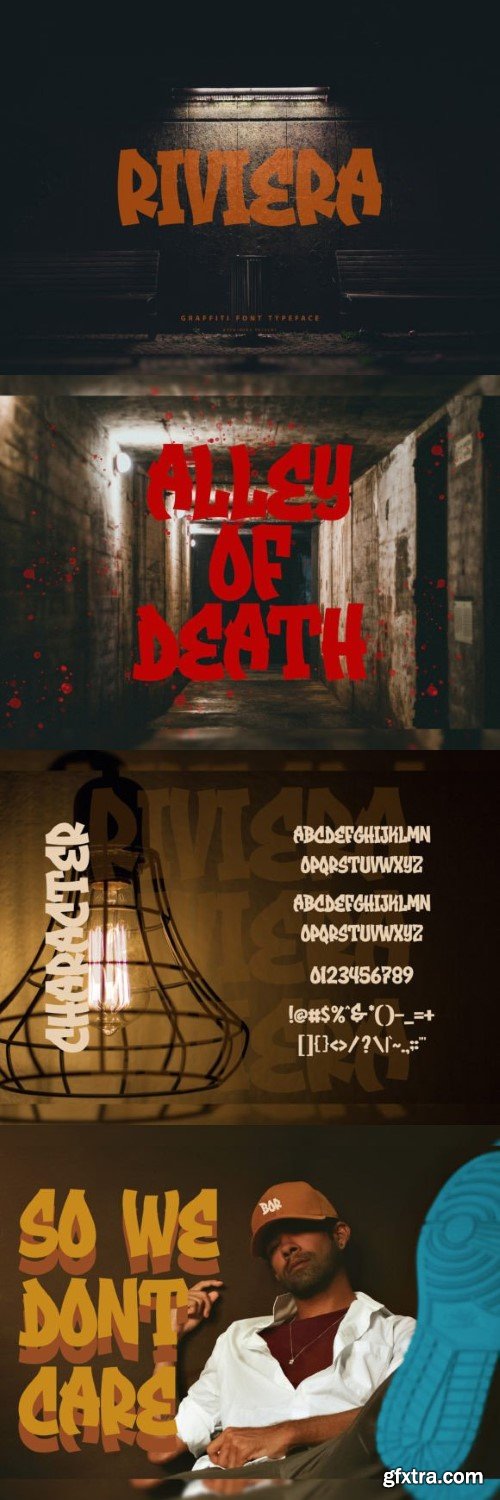
里维拉字体
Riviera is a dynamic graffiti-style display font that adds urban flair to any design. With its edgy, spray-painted look and bold letterforms, Riviera brings a rebellious energy to posters, logos, and street art projects. The intricate details and artistic touch make this font a standout choice for conveying a sense of urban cool and creativity.